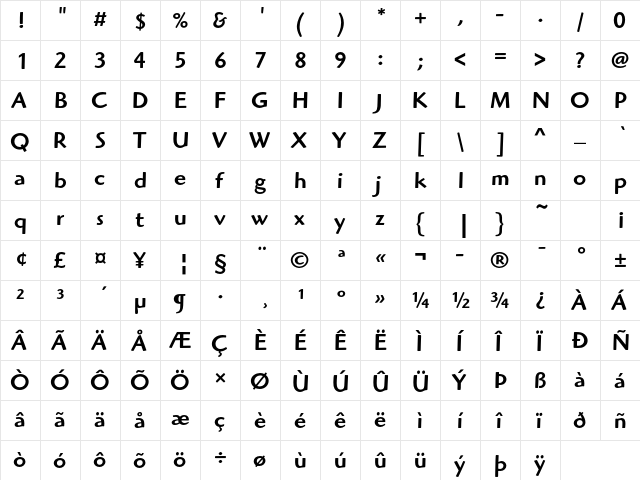
ITC Highlander Std Medium Font Preview
ITC Highlander Std Medium
ITC Highlander Std Medium Font Details
| Designer | David Farey |
Design Context for ITC Highlander Std Typeface
ITC Highlander Std is a composed and adaptable typeface that performs quietly and consistently across a wide range of design contexts.